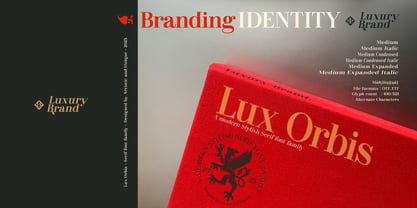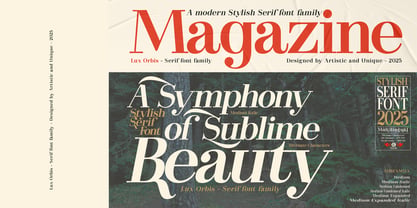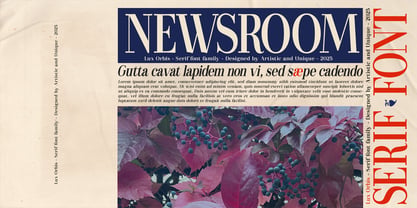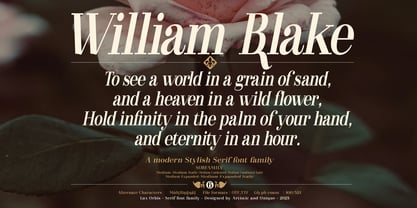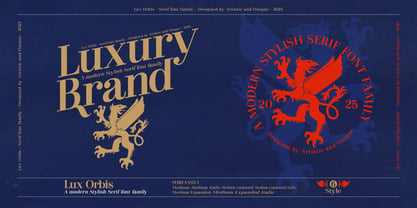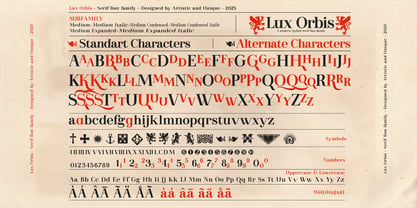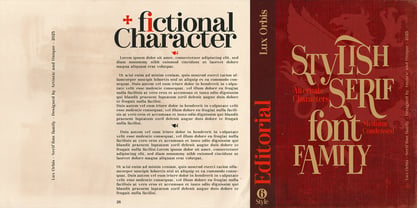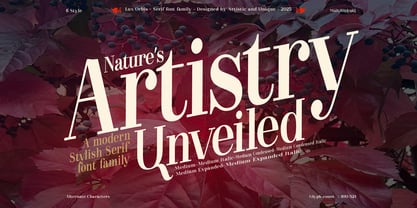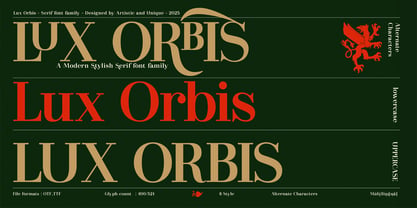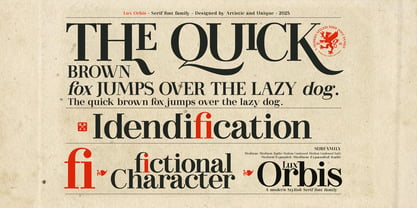
Lux Orbis
La famille de polices Lux Orbis a été conçue par Osman Taner Kucukgenc et publiée par Artisticandunique. Lux Orbis contient 6 styles et options de package familial. En savoir plus sur cette famille
Lux Orbis - Serif font family - Multilingual Supports - 6 Style
Old style fonts have a beautiful and timeless aesthetic that can be used in a wide variety of design application situations.
Lux Orbis was inspired by the fonts used in the 1700s and 1800s. Lux Orbis, which aims to contribute to today's modern day serif fonts with its different nuances, is assertive in many areas with its elegant, versatile and timeless structure.
While its soft curves make it more elegant, it can have higher contrast with the use of large effective letters, while you can achieve effective looks with less contrast in the use of small - body text. Do not hesitate to apply them!
It also has the flexibility to allow stylish and decorative works with its alternative characters, additional symbols, and multilingual structure.
This font type is very suitable for your various needs with its elegant and powerful alternatives in all kinds of projects, including your branding projects, logos, luxury packaging product designs, editorial applications such as books, magazines and newspapers.
With all these features, it provides the advantage of use in many areas.
If you are looking for a versatile serif font, Lux Orbis can meet your needs.